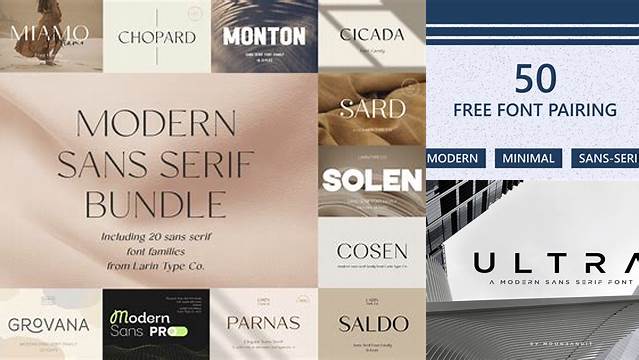
Are you looking to elevate your design projects with a touch of contemporary elegance? Look no further! Modern sans serif fonts are the cornerstone of sleek, minimalist, and highly readable designs. In this article, we'll explore the world of modern sans serif fonts, focusing on where you can find them as free TTF (TrueType Font) downloads. We'll dive into why these fonts are so popular, how to use them effectively, and highlight some standout options available for free.
Why Choose Modern Sans Serif Fonts?
Modern sans serif fonts have become a staple in the design world for several compelling reasons. First and foremost, their clean and straightforward letterforms offer unparalleled readability, making them ideal for a wide range of applications, from body text in websites and books to headlines and branding materials. Unlike their serif counterparts, which feature small decorative strokes at the ends of letters, sans serif fonts boast a more minimalist design, contributing to a contemporary and uncluttered aesthetic.
One of the key advantages of using modern sans serif fonts is their versatility. These fonts can seamlessly adapt to various design styles, whether you're aiming for a corporate, tech-savvy, creative, or minimalist look. Their neutral appearance allows them to pair well with other fonts, graphics, and design elements, giving you greater flexibility in creating visually appealing and cohesive designs. Moreover, modern sans serif fonts often come in a variety of weights and styles, from light and thin to bold and condensed, providing you with ample options to fine-tune your typography and achieve the desired visual impact.
Another reason for the popularity of modern sans serif fonts is their legibility across different media and screen resolutions. In the digital age, where designs are viewed on a multitude of devices, ensuring that your text remains clear and readable is paramount. Modern sans serif fonts typically feature well-defined letterforms and ample spacing, making them easy to read even at smaller sizes or on lower-resolution screens. This is particularly important for websites, mobile apps, and other digital interfaces, where user experience is heavily influenced by the readability of the content. Their simple, uncluttered forms ensure clarity, which is crucial for conveying information effectively. This makes them a favorite for websites, apps, and digital publications where readability is paramount. Furthermore, the absence of serifs makes these fonts appear cleaner on screens, reducing visual noise and improving the overall reading experience.
- Adobe Fonts: If you're an Adobe Creative Cloud subscriber, you have access to Adobe Fonts, a vast library of high-quality fonts that are included with your subscription. Adobe Fonts offers a wide selection of modern sans serif fonts from leading type foundries, all of which are fully licensed for commercial use. The fonts are seamlessly integrated into Adobe Creative Cloud apps, making it easy to browse, activate, and use them in your designs. If you're already paying for Adobe Creative Cloud, you've got a treasure trove of fonts waiting for you. Adobe Fonts has tons of modern sans serif fonts that are all included in your subscription. It's super easy to use them in your designs, too.
When downloading fonts from these websites, be sure to carefully review the license agreement to ensure that you are using the font in accordance with its terms. Some fonts may be free for personal use but require a commercial license for business purposes. Always err on the side of caution and respect the rights of the font creators.
Tips for Using Modern Sans Serif Fonts Effectively
Now that you know where to find free modern sans serif fonts, let's talk about how to use them effectively in your designs. Here are some tips to keep in mind:
Modern sans serif fonts are an essential tool for any designer looking to create sleek, contemporary, and highly readable designs. By leveraging the resources and tips outlined in this article, you can confidently choose and use modern sans serif fonts to enhance your projects and achieve your design goals. So go forth, explore the world of free TTF fonts, and unleash your creative potential!